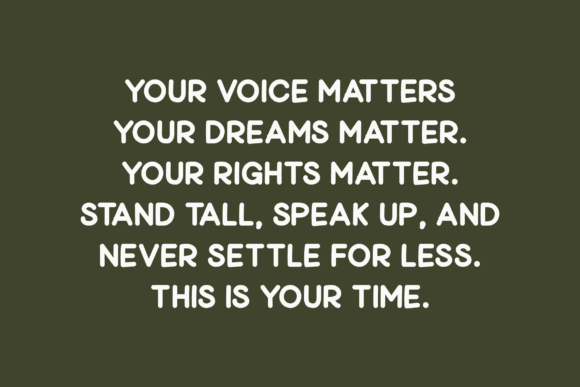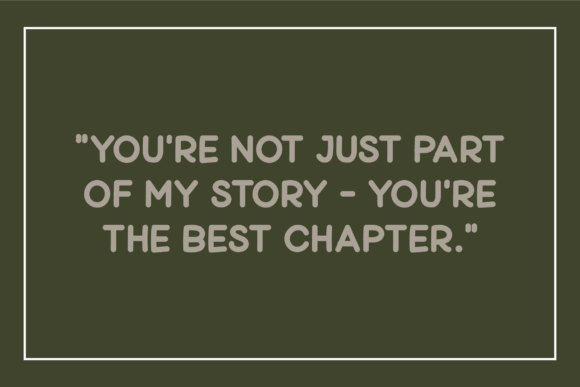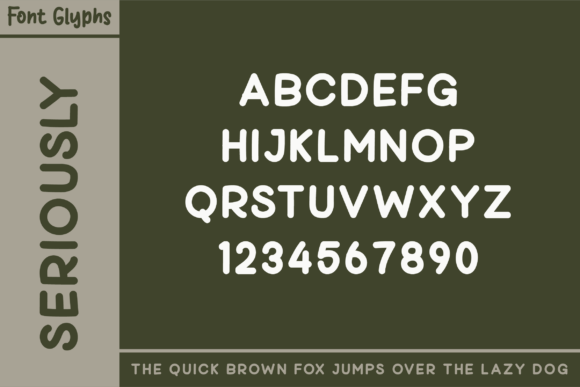
Introduction to Seriously Font
Remember that moment when you’re brainstorming ideas for a creative project and suddenly, the perfect font pops into your head? It’s like the universe is telling you that you’re on the right track. For designers, finding the perfect font can be the difference between a mediocre and a stunning design. And, trust me, you’re about to discover a game-changer – the Seriously Font.
This quirky all caps font is a treasure trove of creative possibilities. With its high-quality design and free download option, you can unleash your imagination and bring your ideas to life. Whether you’re working on a social media campaign, crafting a personalized gift, or designing a custom t-shirt, the Seriously Font is the perfect companion. Its transparent background makes it easy to layer and combine with other elements, giving you endless design possibilities.
As a valuable resource for designers, the Seriously Font is a must-have in your toolkit. Its unique style and versatility make it an ideal choice for a wide range of projects, from invitations and cards to decals and more. So, get ready to take your designs to the next level with the Seriously Font – a truly awesome design resource that’s waiting to be explored.
Key Features of Seriously Font
- High-quality design resource suitable for creative projects, available for free download.
- Includes a comprehensive set of characters, including uppercase and lowercase letters, numbers, and punctuation marks.
- Designed to be highly legible at various font sizes, from 12px to 72px, making it suitable for both small and large-scale designs.
- Perfect for use in graphic design, digital art, and other creative projects where a high-quality font is essential.
Honest Review: Seriously Font
As a designer, I’m always on the lookout for high-quality design resources that can elevate my creative projects. Recently, I had the chance to try out the Seriously Font, and I’m excited to share my thoughts.
- Clean and modern aesthetic: Seriously Font has a sleek, modern design that’s perfect for a wide range of creative projects.
- Transparent background: This feature allows for easy customization and flexibility in design applications.
- Limited font styles: While Seriously Font has a clean and modern design, it’s available in a relatively limited range of styles.
- Not suitable for complex designs: Due to its simplicity, Seriously Font may not be the best choice for complex or detailed designs.
Overall, I’m impressed with the Seriously Font’s clean design and free availability. While it may not be the most versatile font, it’s a great option for designers looking for a simple, modern aesthetic.
Tips for Getting the Most Out of Seriously Font
For best results, use the Seriously Font with a transparent background to give your designs a clean and modern look. Experiment with different font sizes and styles to find the perfect combination for your creative project.
The Seriously Font is perfect for a variety of applications, including:
- Logos and branding
- Editorial and publishing
Yes, Seriously Font is designed to be high-quality and suitable for use in a variety of printing applications, including high-resolution printing. The font includes a transparent background, making it easy to use with images and other design elements.
Is Seriously Font a design resource for beginners?
Seriously Font is a great design resource for designers of all skill levels, including beginners. The font is easy to use and includes a range of features that make it perfect for creative projects, such as logos, branding materials, and other visual identities.